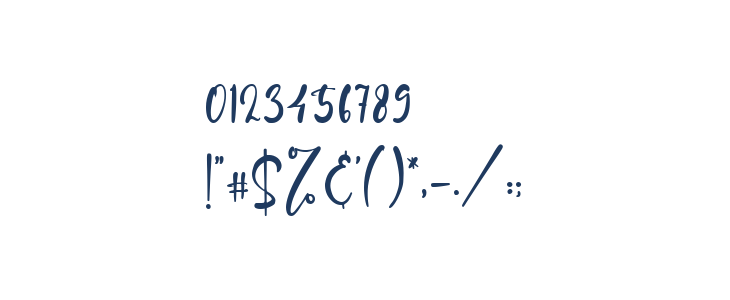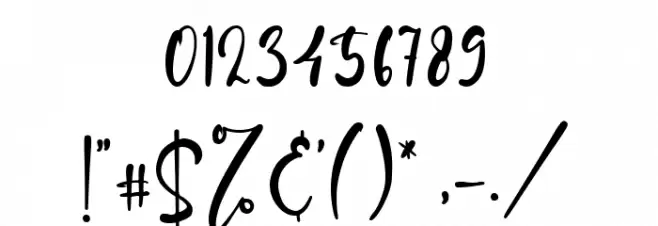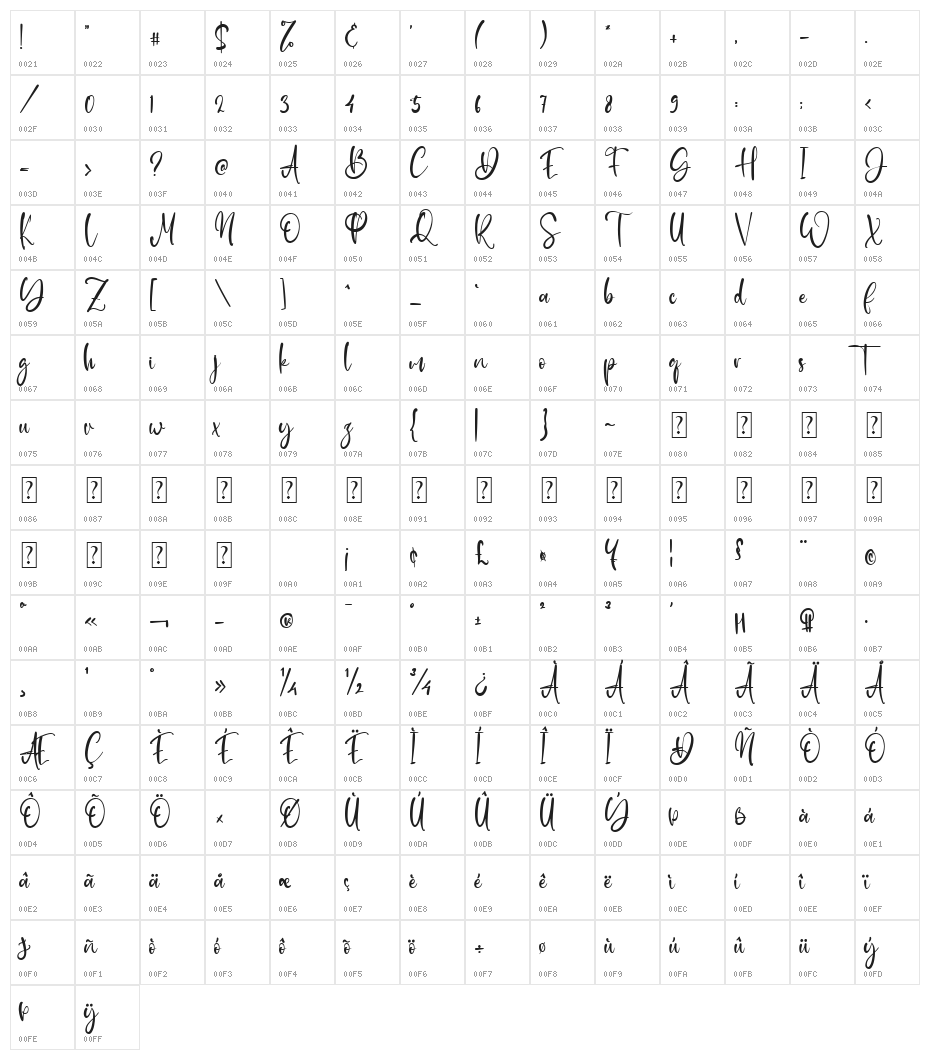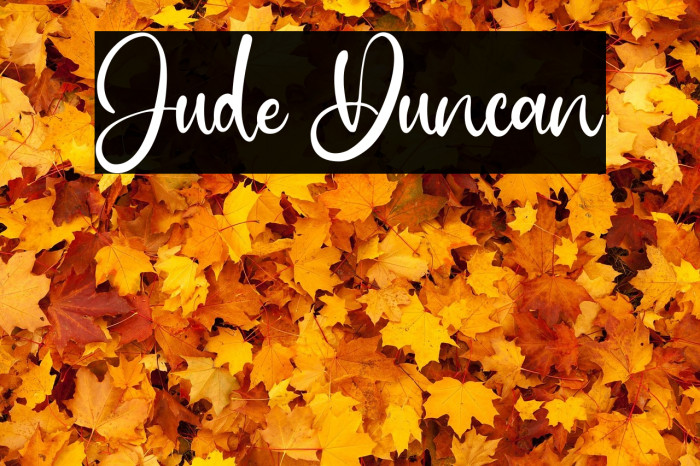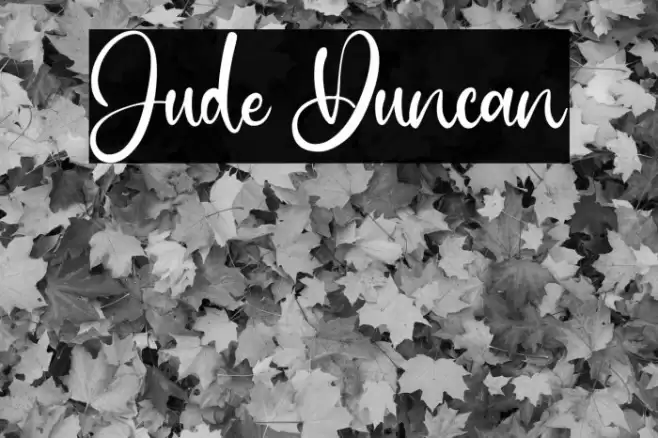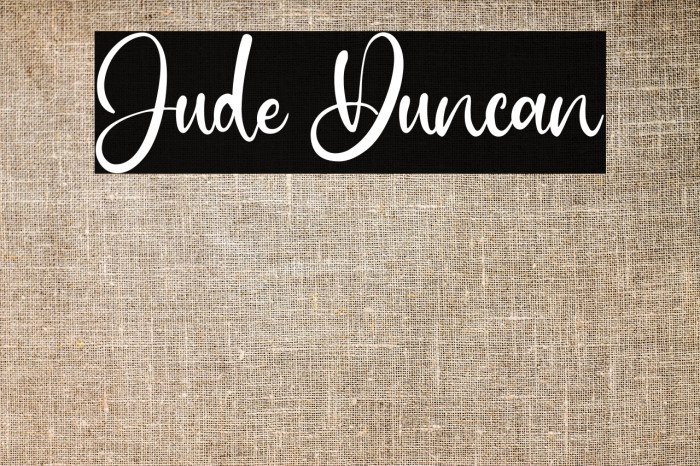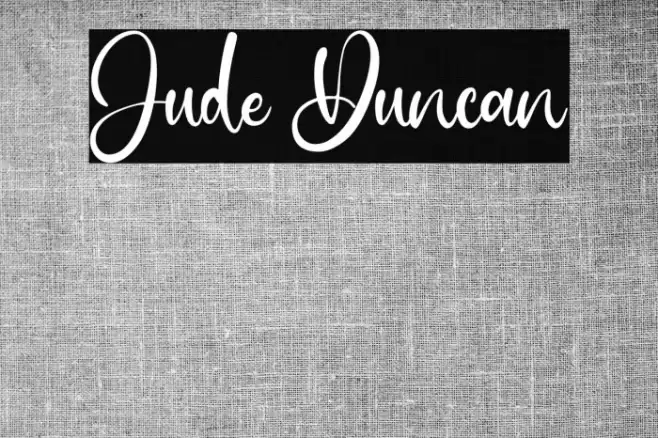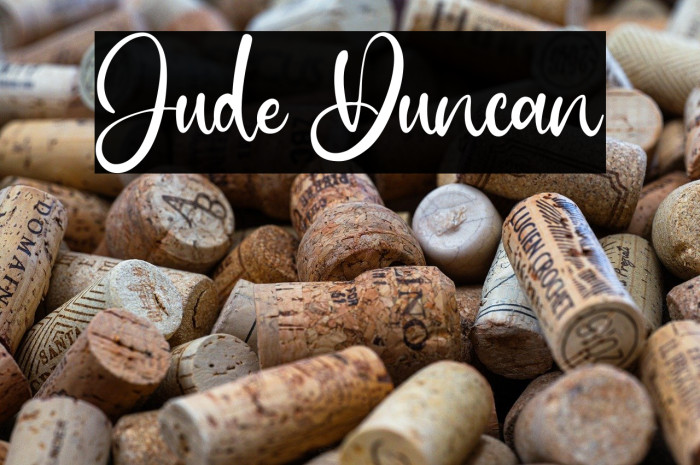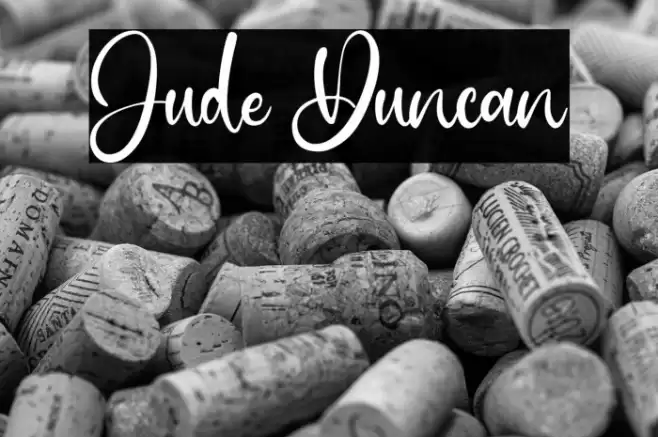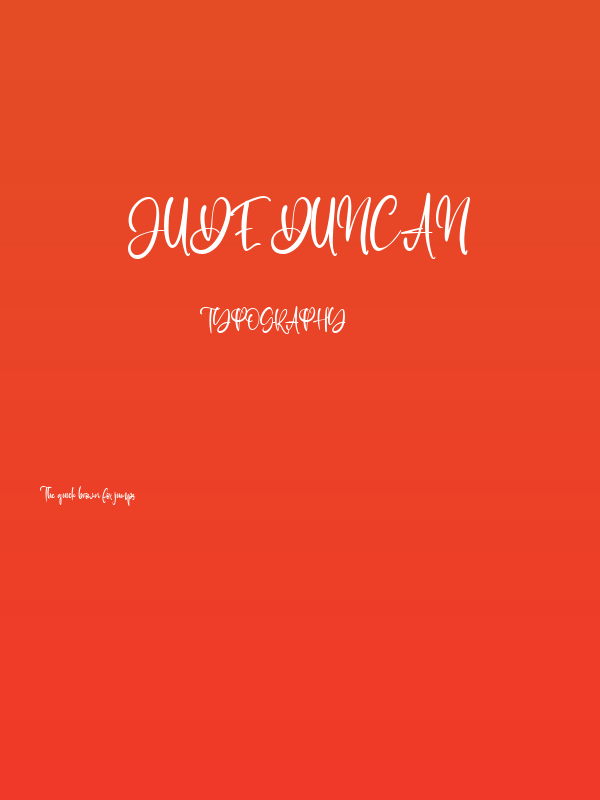
Jude Duncan Font
Jude Duncan Description
This font features a lively and flowing script style, characterized by its elegant and cursive letterforms. The uppercase letters are bold and sweeping, with dramatic flourishes and loops that give a sense of movement and grace. The lowercase letters maintain a consistent style, with smooth connections and a slightly more compact form. The numerals are distinct and maintain the cursive style, adding a playful touch. Special characters are creatively integrated, maintaining the overall aesthetic. This font is perfect for projects that require a personal and artistic touch, such as invitations, greeting cards, and branding materials.
| Proposed Projects | Ideal for wedding invitations, greeting cards, personal branding, and artistic projects. |